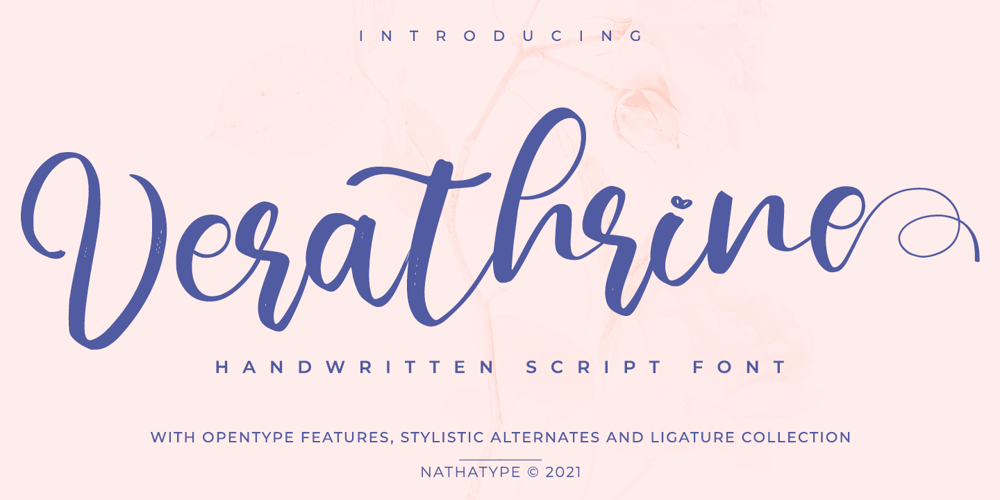
Verathrine Font Family was designed by Donis Miftahudin and published by Nathatype. Verathrine contains 1 styles and family package options. Ready to enchant your audience and enhance your branding? A beautiful and spirited design like this is a great way to grab everyone’s attention! Wait no more, this beautiful font can be yours right now! Verathrine-A Handwritten FontThis font is all about elegance and style. The curvature of the Verathrine was fully thought out to easily meld inside your designs. These fonts make a good foundation of what you want it to be! Great to be used on headings, logos, business cards, printed quotes, cards, packaging, resumes, and even your website or social media branding. Features: Ligatures Stylistic Sets Swashes PUA Encoded Numerals and Punctuation Thank you for downloading premium fonts from Nathatype